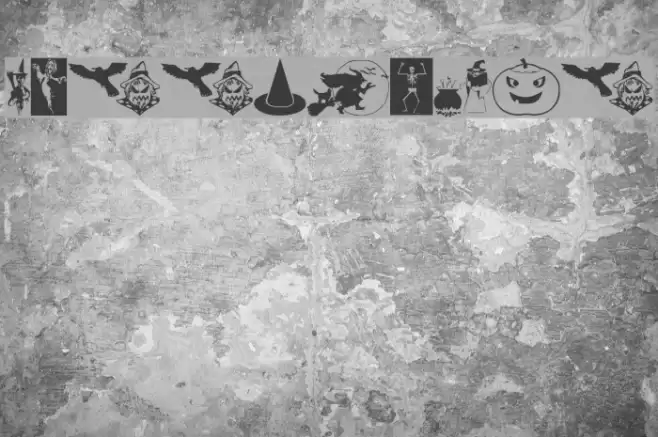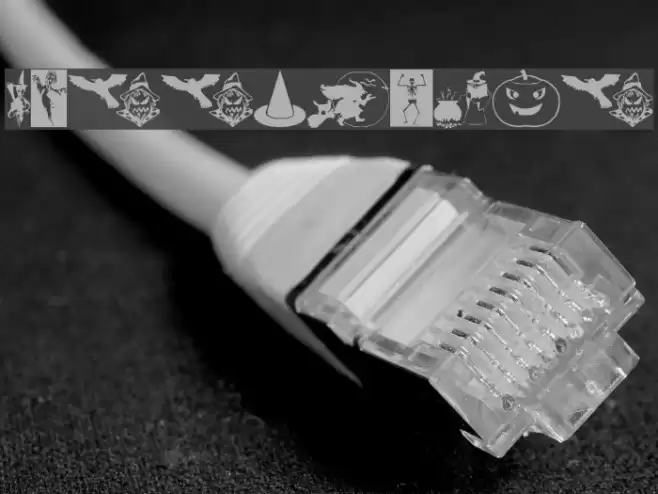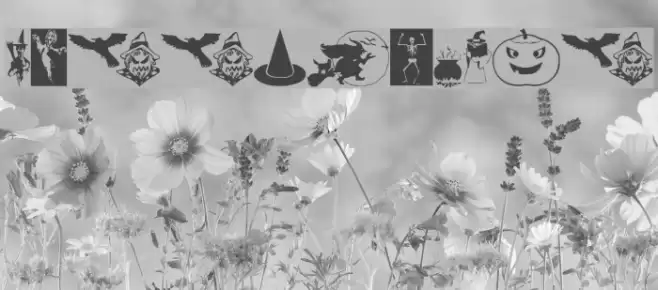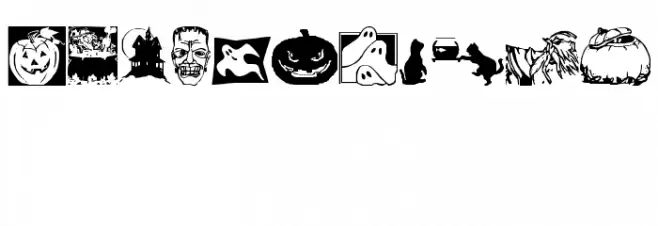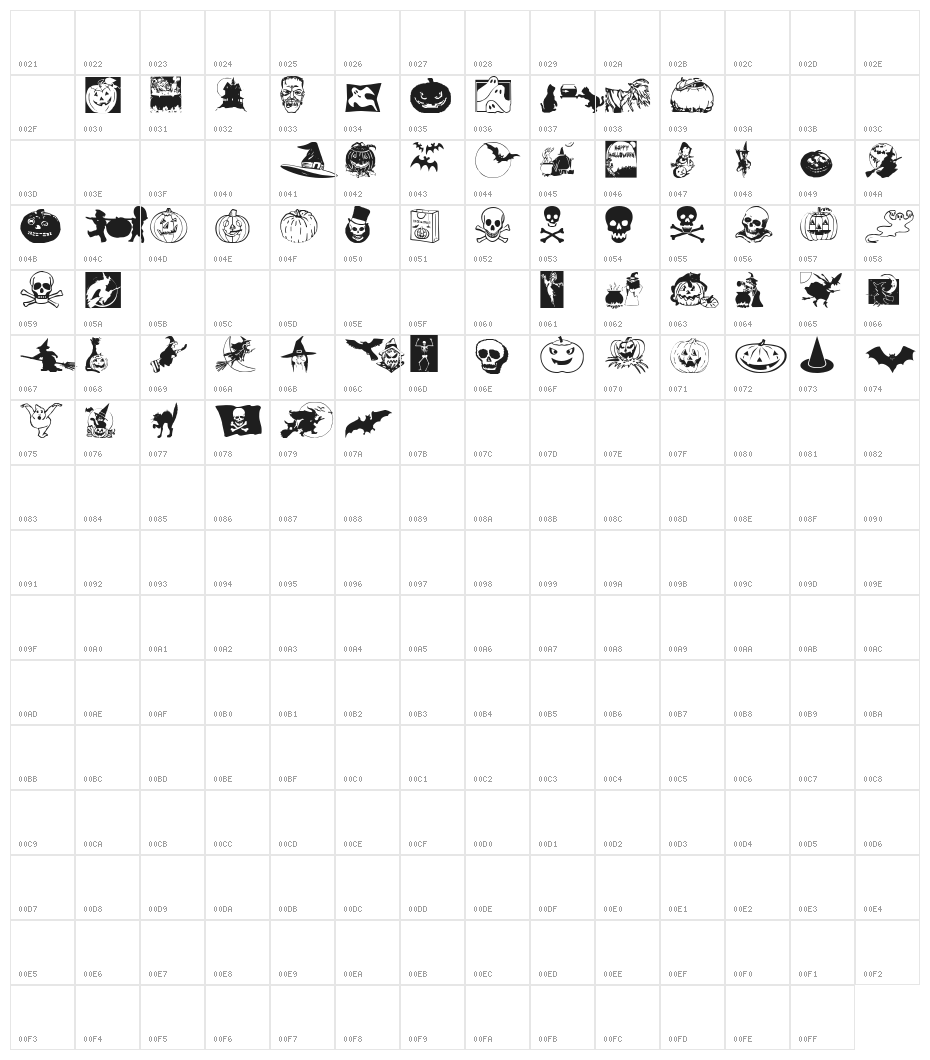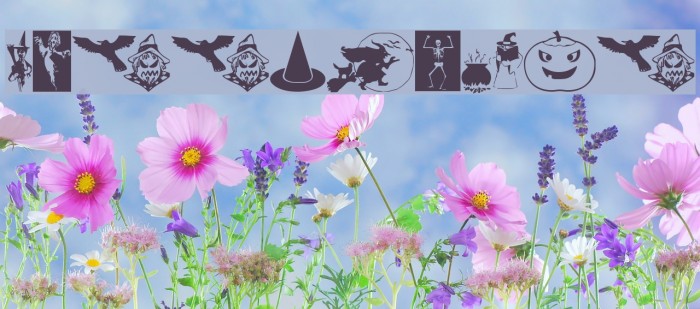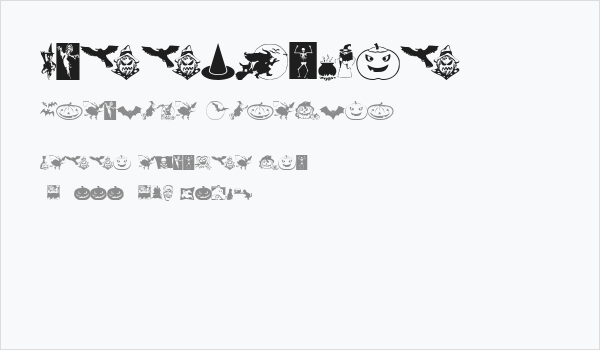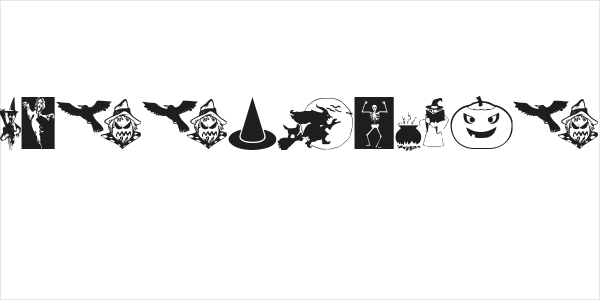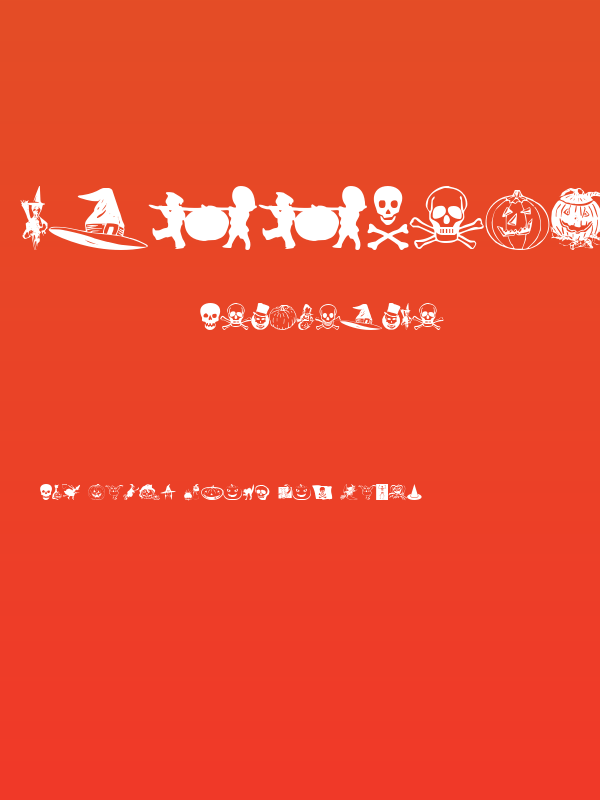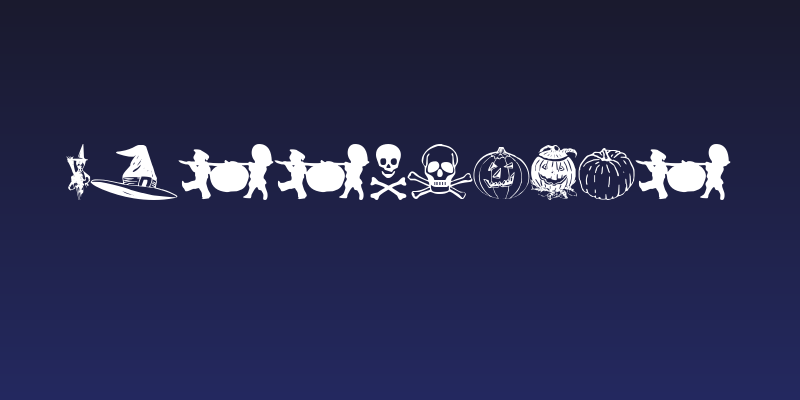
Hallsymbol Font
Hallsymbol Description
A decorative dingbat font featuring a wide variety of Halloween-themed symbols, including pumpkins, witches, skulls, bats, ghosts, haunted houses, and other spooky imagery. The icons are rendered in a bold, high-contrast black-and-white style, with both filled and outlined elements, and a playful, cartoonish aesthetic.
Halloween-themed decorative symbol font with bold, playful icons from Uncategorized fonts.
- Proposed Projects: Halloween party invitations, event posters, seasonal decorations, classroom materials, themed crafts, digital stickers.
- Overall Style: Decorative, Playful, Thematic
- Use Case: Icons, Decorative elements, Themed graphics